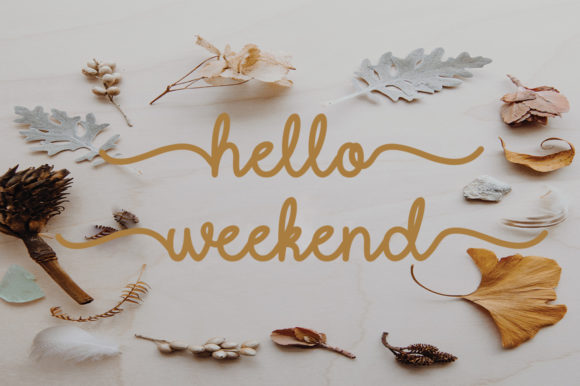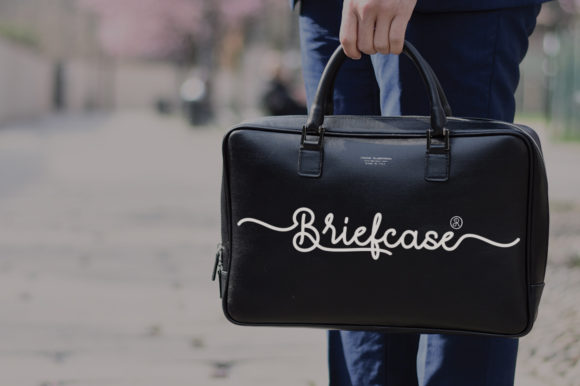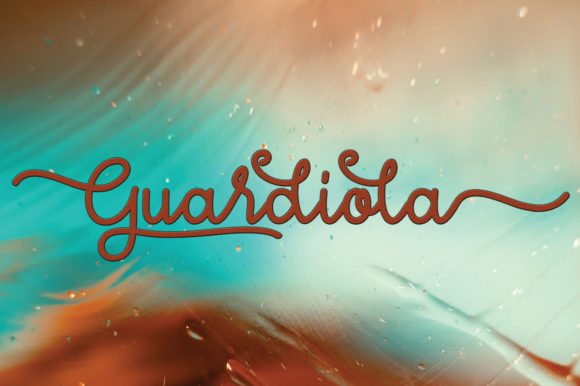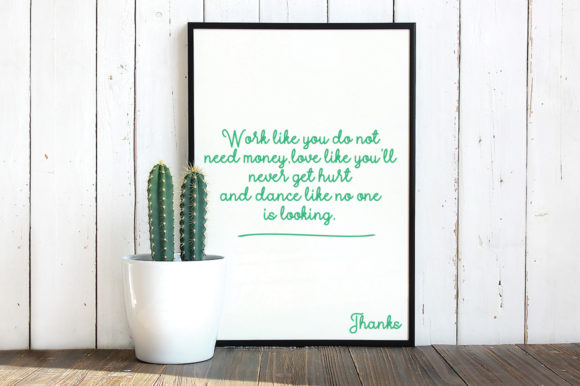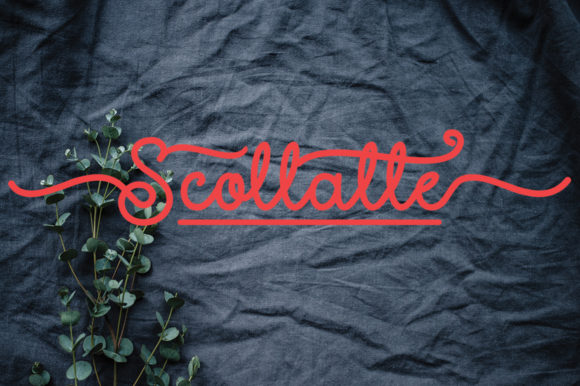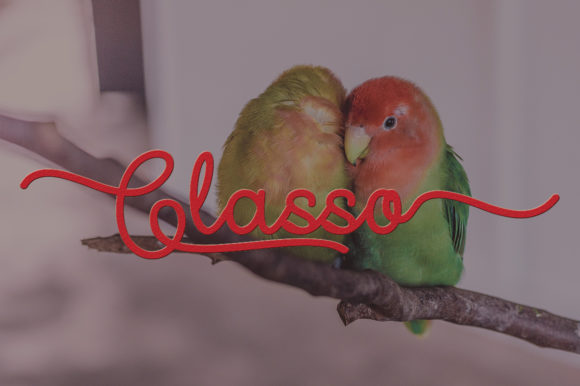
The Billabang Font: A Timeless Classic for Your Creative Projects
I’ll never forget the time I was working on a branding project for a client who wanted a vintage, Americana-inspired feel. I spent hours scouring the internet for the perfect font, but nothing seemed quite right. That was until I stumbled upon Billabang, a stylish script font that instantly transported me to a bygone era. In this article, I’ll share my love for Billabang, its features, and how to make the most of it in your creative projects.
A Personal Review of Billabang
So, what makes Billabang so special? Here are a few things I love about this font:
- ✨ Easygoing classic feel: Billabang has a relaxed, effortless vibe that’s perfect for projects that need a touch of sophistication.
- ✅ Highly legible: Despite its script nature, Billabang is surprisingly easy to read, even at smaller font sizes.
- 💫 OpenType features: Billabang comes with a range of OpenType features, including glyphs and stylistic alternates, that allow you to customize your text.
Of course, no font is perfect, and Billabang has a few quirks:
- ⚠️ Limited character set: While Billabang has a wide range of characters, it’s not a full Unicode font, so you may encounter issues with certain special characters.
- 🤔 Slight inconsistencies: Some users may notice slight inconsistencies in the font’s lettering, which can be distracting if you’re looking for a super uniform look.
The Story Behind Billabang
While the origins of Billabang are shrouded in mystery, it’s clear that this font was inspired by the classic typography of America’s golden age. Imagine a warm summer evening, the sound of jazz music drifting through the air, and the smell of freshly brewed coffee wafting from the local café. That’s the feeling Billabang aims to evoke.
| Font Name | Billabang Font |
| Author | faisal_Alfaraby |
| What type of projects is Billabang best suited for? | Billabang is perfect for projects that need a classic, Americana-inspired feel, such as branding, packaging, and editorial content. |